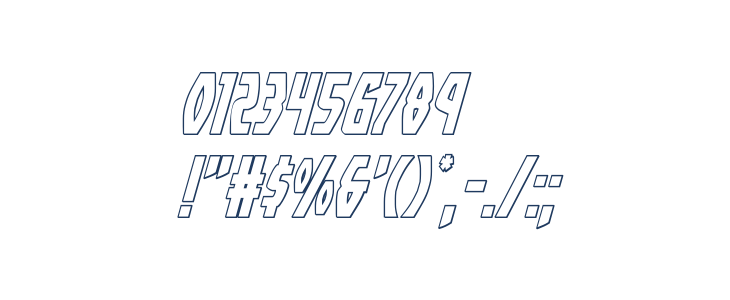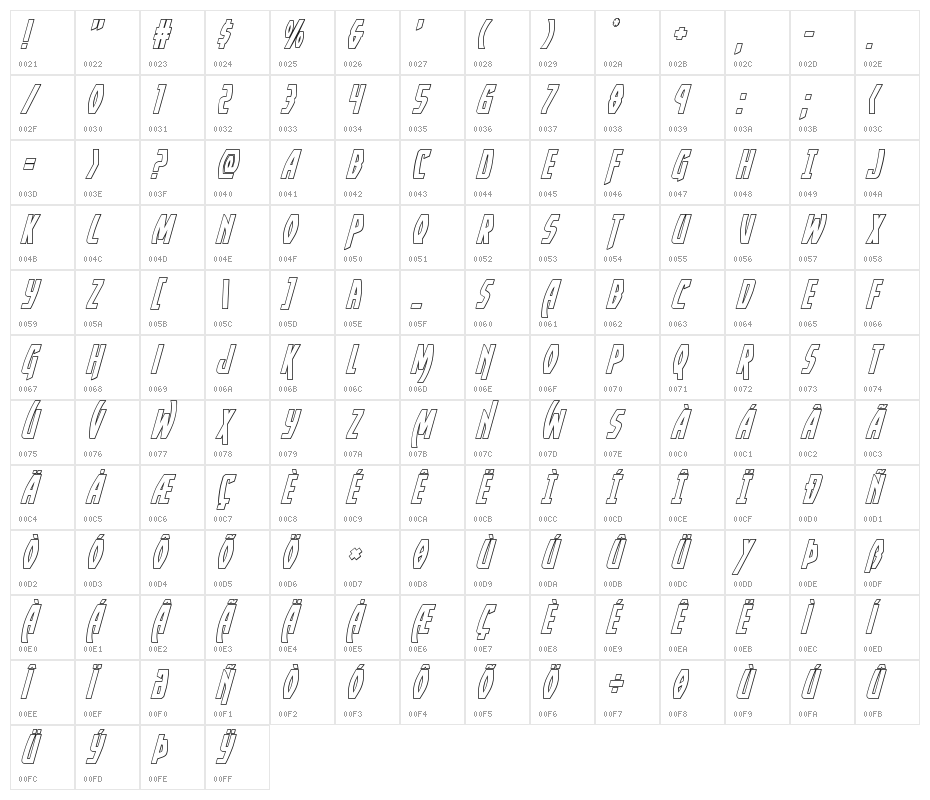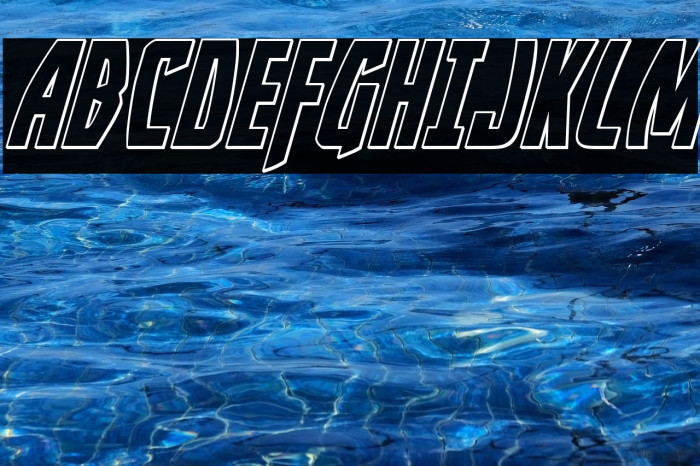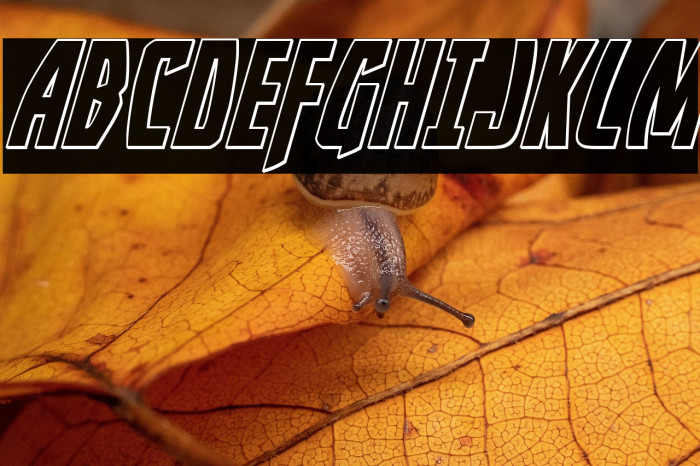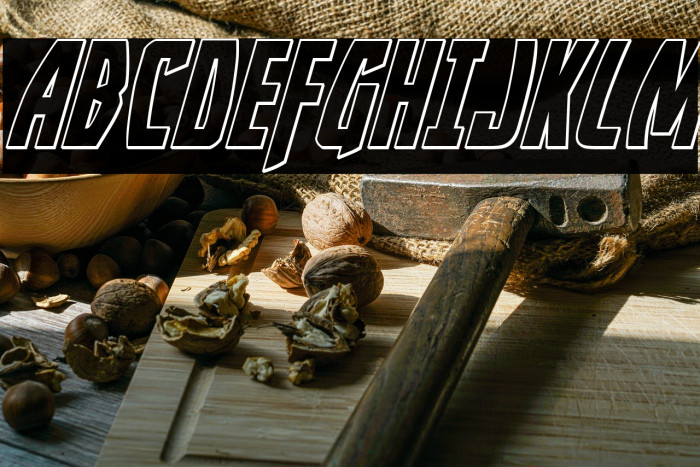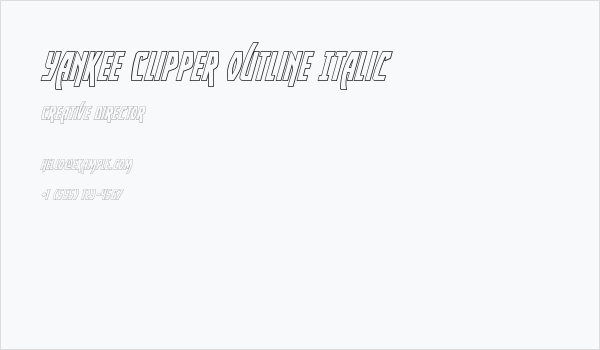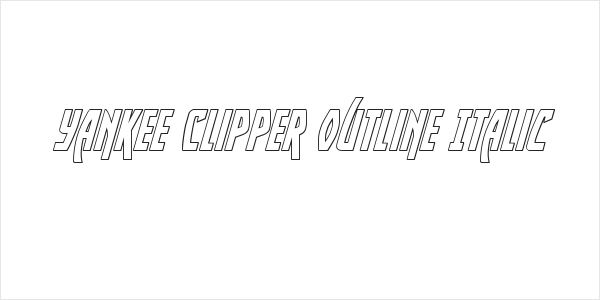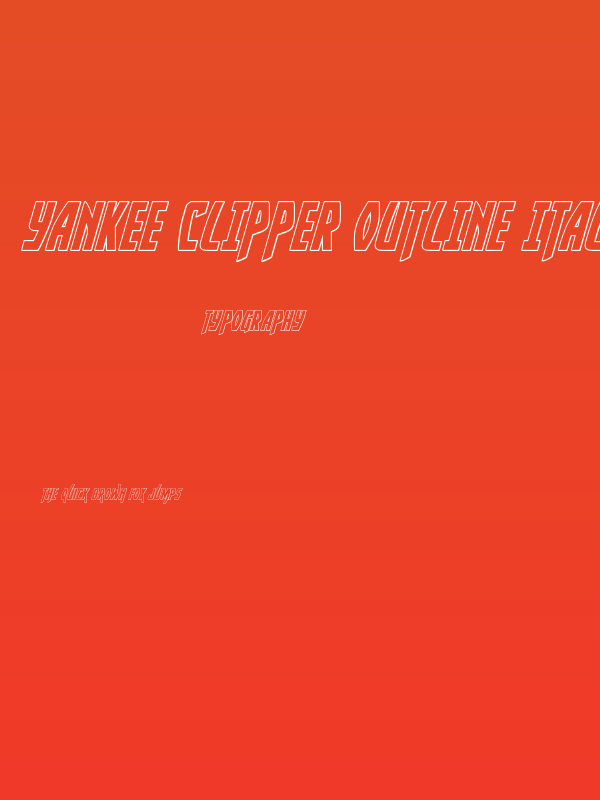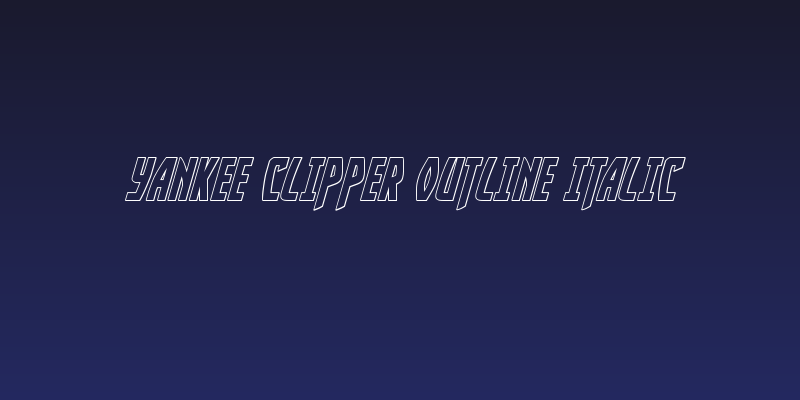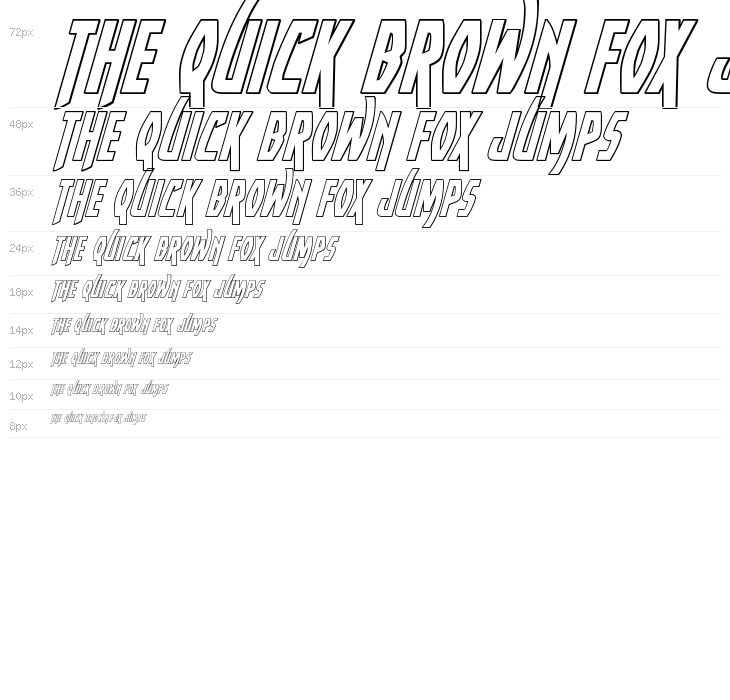
Yankee Clipper Outline Italic Font
Yankee Clipper Outline Italic Description
This font features a bold, italicized outline style that gives it a dynamic and energetic appearance. The uppercase and lowercase letters are designed with sharp angles and a forward-leaning slant, creating a sense of movement and speed. The numbers and special characters maintain this consistent style, ensuring a cohesive look across all glyphs. The outline effect adds a layer of depth, making the characters stand out prominently. This font is ideal for projects that require a bold statement or a modern, edgy feel.